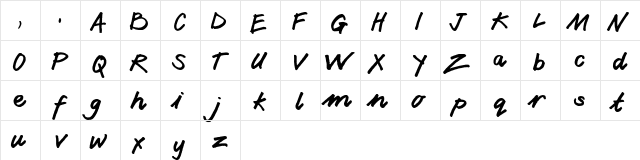
ConranScript Normal
Design Context for ConranScript Typeface
ConranScript flows with the natural rhythm of handwritten lettering, making it ideal for designs that call for warmth and personal expression.
Font Pairing: Combine ConranScript with a simple geometric sans for maximum contrast — the tension between flowing curves and clean structure is a classic typographic pairing.
Pro Tip: Pair ConranScript with a clean sans-serif for supporting text. The contrast between fluid script and geometric structure creates an elegant typographic hierarchy.